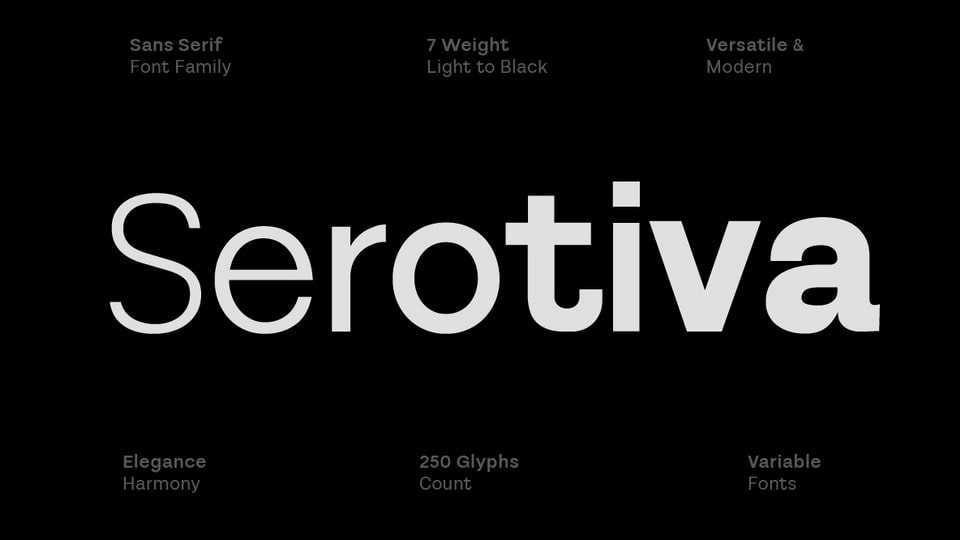
Download Serotiva font, a sans serif typeface that boasts a contemporary and refined design, making it an ideal choice for a wide range of design projects. Its smooth and polished appearance, creates an air of sophistication and ensures that text is easy to read and professional-looking.
Designer: Yukita Creative